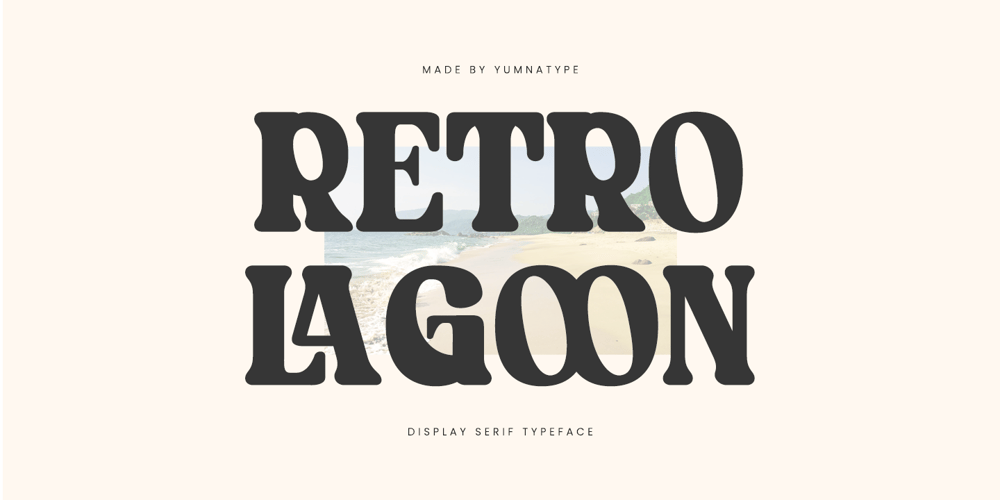
Retro Lagoon Font Family was designed by Donis Miftahudin and published by Yumna Type. Retro Lagoon contains 1 styles and family package options. Retro Lagoon is a captivating serif font that channels the essence of bygone eras with a contemporary twist. With its bold weight and modern styling, this font captures the nostalgia of retro design while maintaining a fresh and dynamic appeal. Crafted with meticulous attention to detail, Retro Lagoon is made with bold and striking letterforms that command attention on the page. Despite its retro-inspired roots, Retro Lagoon is designed with a modern sensibility that ensures its relevance in today’s design landscape. Clean lines, balanced proportions, and subtle details give this font a timeless quality that transcends trends and adds a touch of sophistication to any project. In addition, enjoy the features here.Features: Ligatures Multilingual Supports PUA Encoded Numerals and Punctuations Retro Lagoon fits in headlines, logos, posters, flyers, branding materials, greeting cards, print media, editorial layouts, and many more designs. Find out more ways to use this font by taking a look at the font preview.Thanks for purchasing our fonts. Hopefully, you have a great time using our font. Feel free to contact us anytime for further information or when you have trouble with the font. Thanks a lot and happy designing.